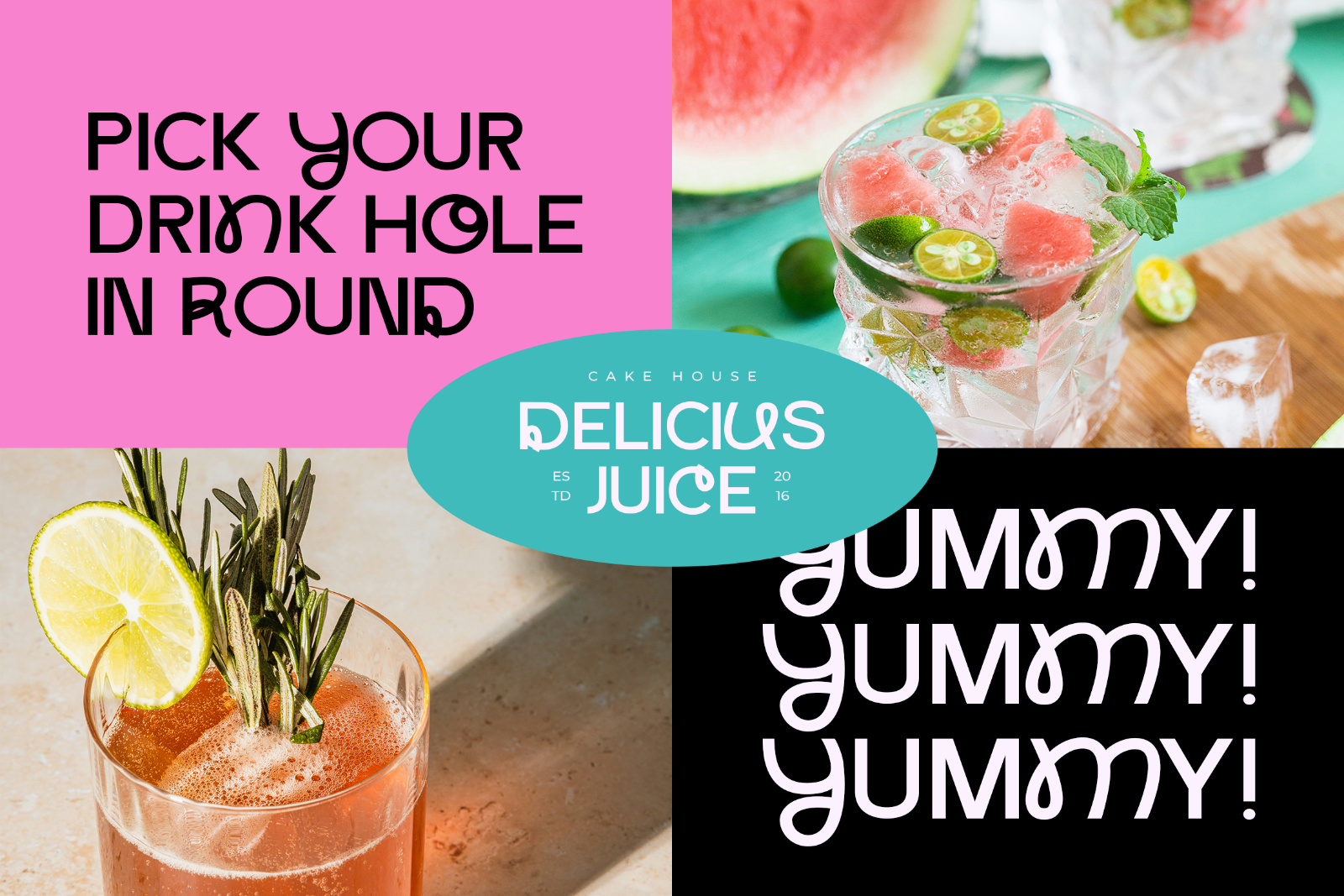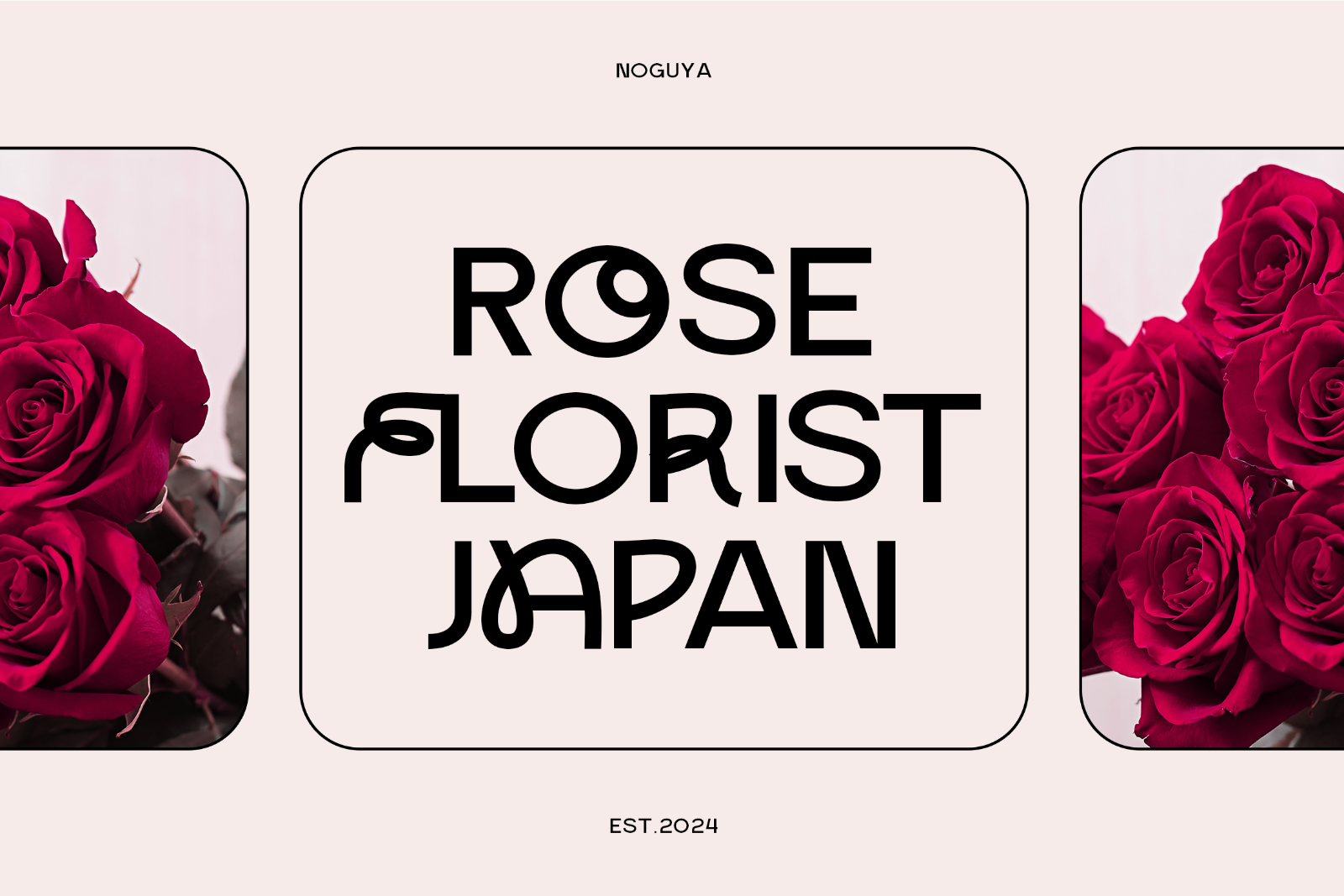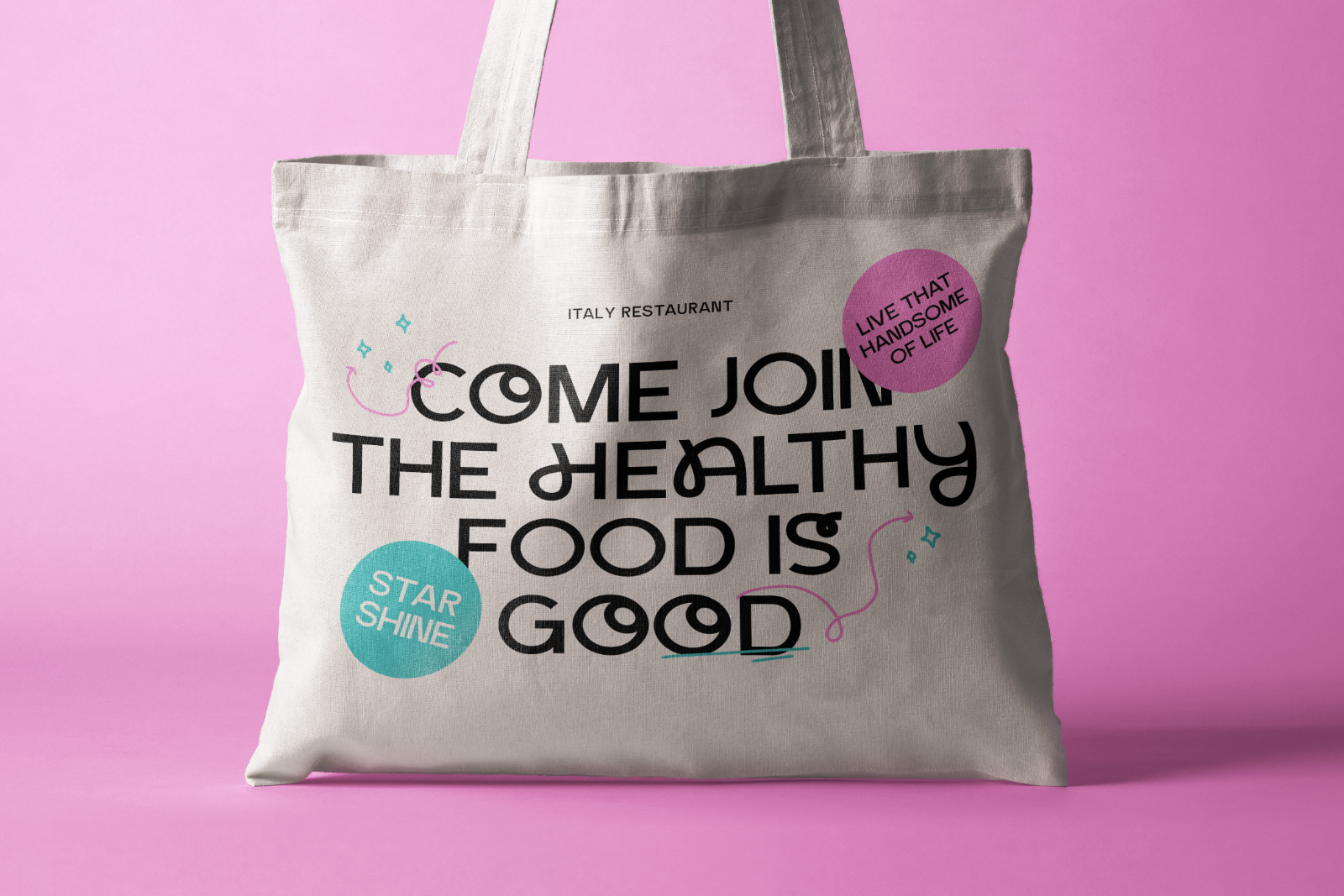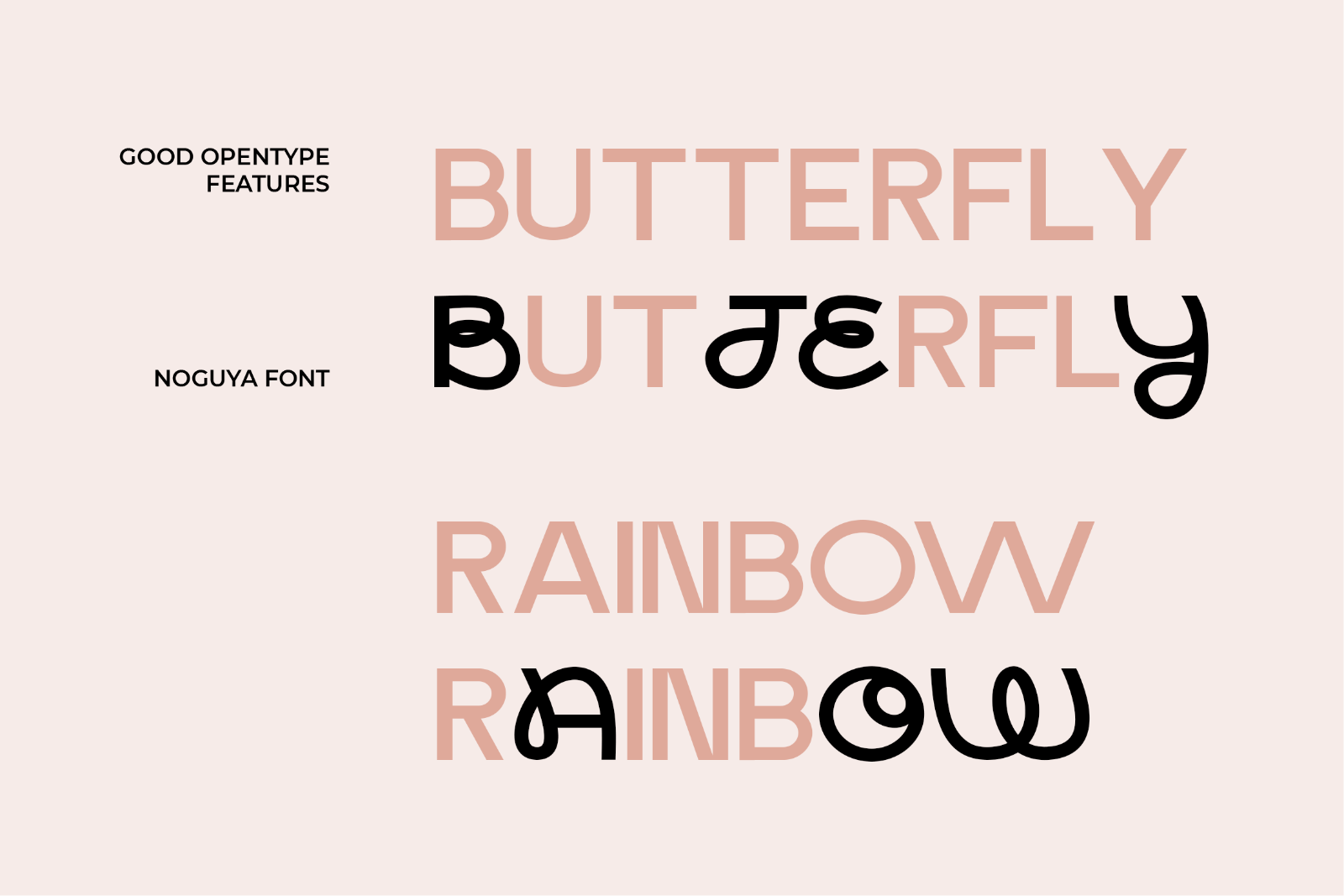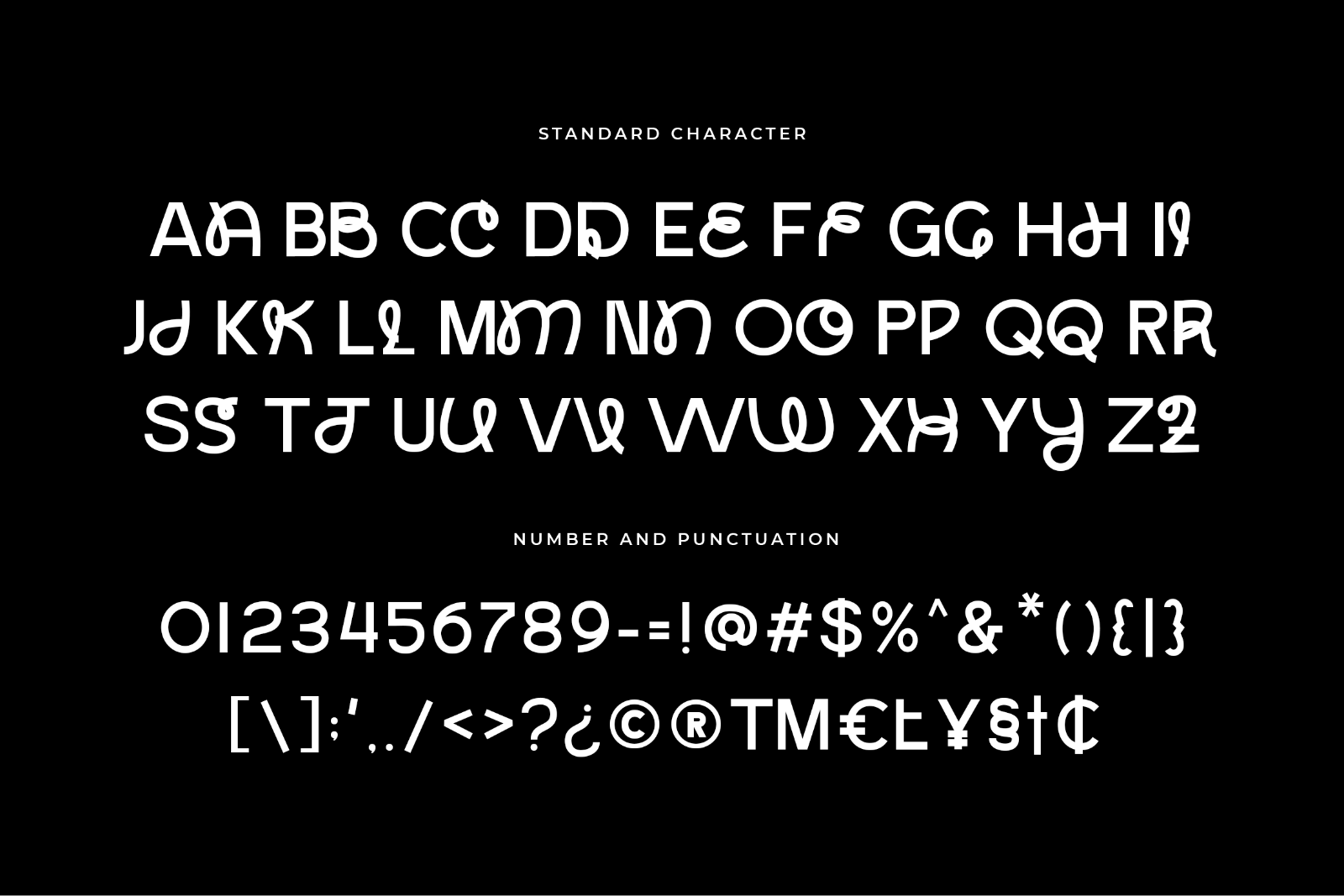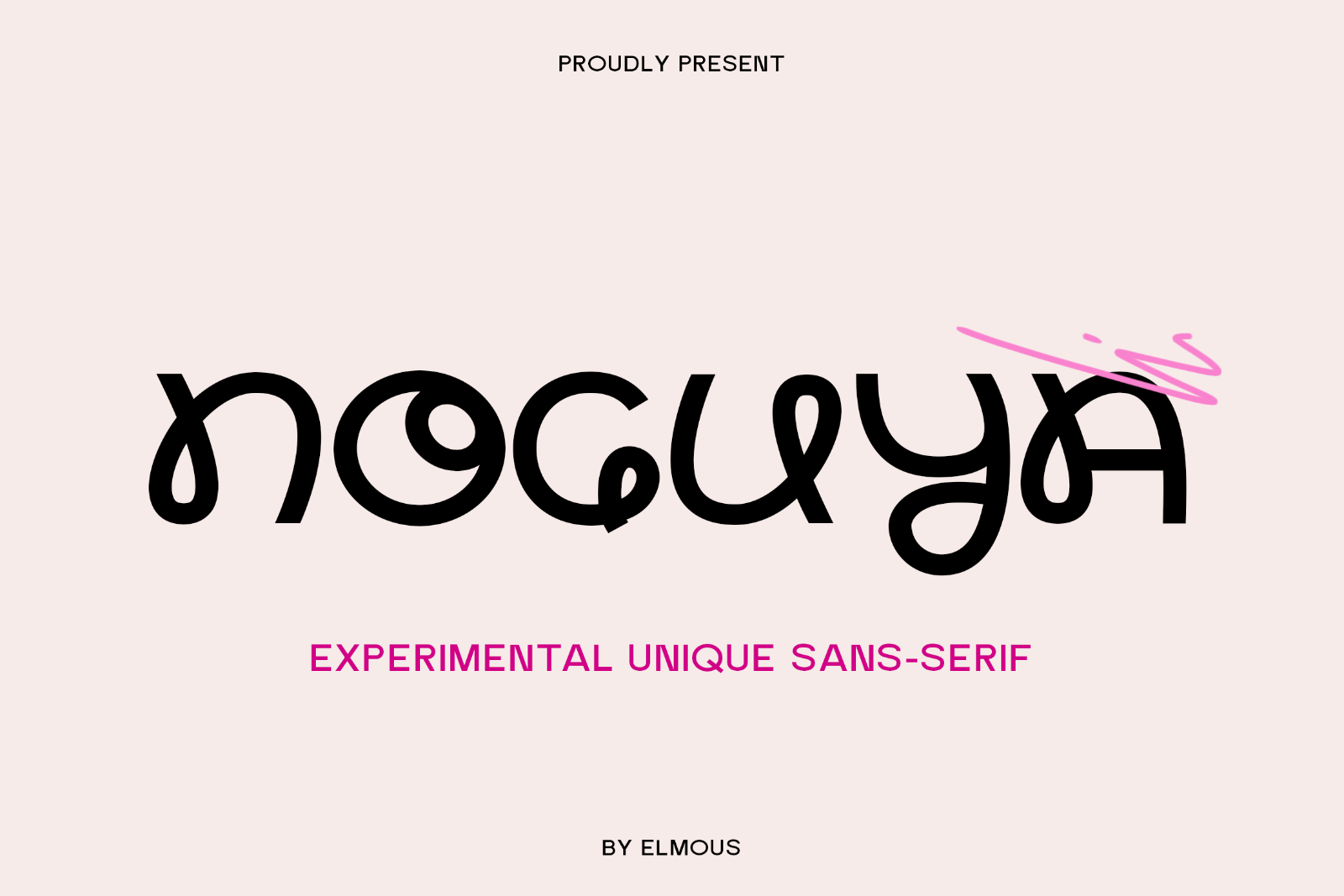
Noguya is a unique and experimental sans-serif have a playful, rounded appearance with curves and loops that give it a friendly, informal feel. This font features a playful and modern style.
Suitable for a wide variety of projects such as a display font for headings, logo fonts, invitations, branding, book covers, magazine layouts, card, product packaging, product mockup, mugs, posters, labels, editorials, art deco, and any type of advertising purpose.
• Uppercase and Lowecase Characters.
• Numerals and Punctuations.
• Alternates and Ligatures.
• Multilingual Support.